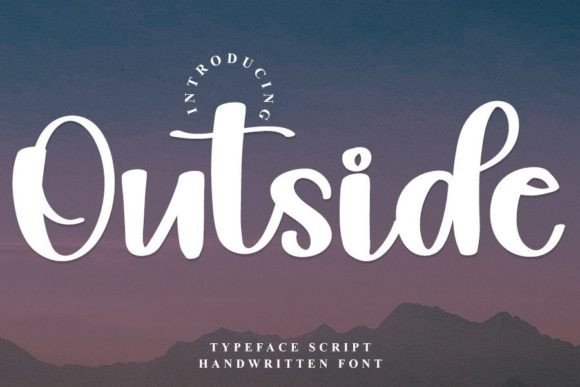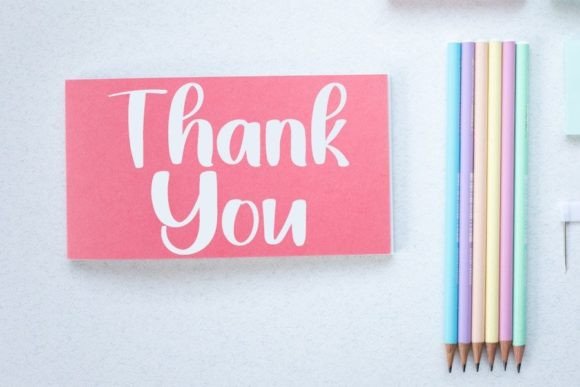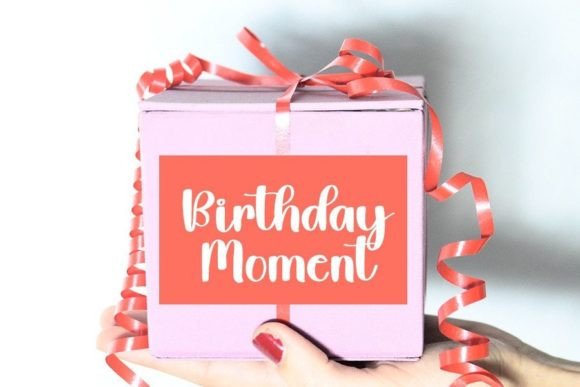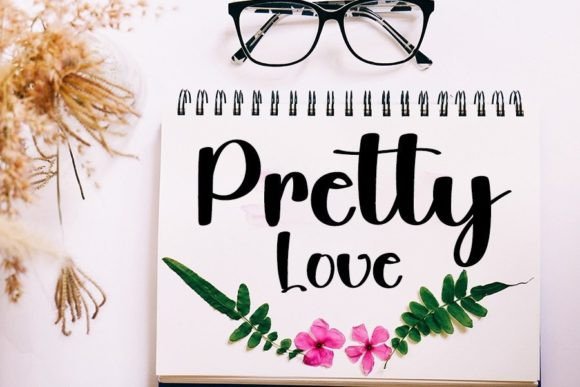
Outside Font
About Outside Font
“Outside” is a delightful and beautifully crafted handwritten font that combines neatness with elegance. Its elegant touch and timeless style make it a perfect choice for a wide range of creative projects. The font’s distinct character adds a sense of sophistication and charm, elevating your designs and making them visually spectacular.
With its clean and well-defined letterforms, “Outside” exudes a sense of clarity and precision. Its neat appearance gives your text a polished and professional look, making it suitable for various design applications. Whether you’re working on branding, invitations, packaging, social media graphics, or any other project, “Outside” adds a touch of refinement to your designs.
The font’s versatility allows it to adapt seamlessly to different design contexts. Its elegant and timeless style ensures that your projects have a classic appeal, making them relevant for years to come. “Outside” is designed to make your favorite projects shine, enhancing their visual impact and leaving a lasting impression on your audience.
Embrace the distinctiveness of “Outside” and let it inspire your creativity. Whether used for digital or print media, this font brings a touch of sophistication to your designs, making them stand out with elegance and grace. Fall in love with its neat and beautiful handwritten style, and watch as it transforms your creative visions into spectacular designs. With “Outside,” you have the perfect tool to create visually stunning and captivating artworks that leave a lasting mark on your viewers.